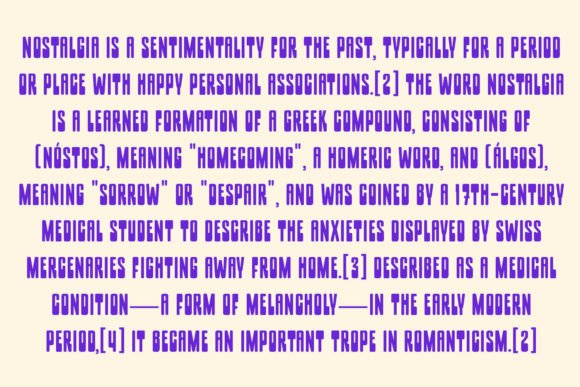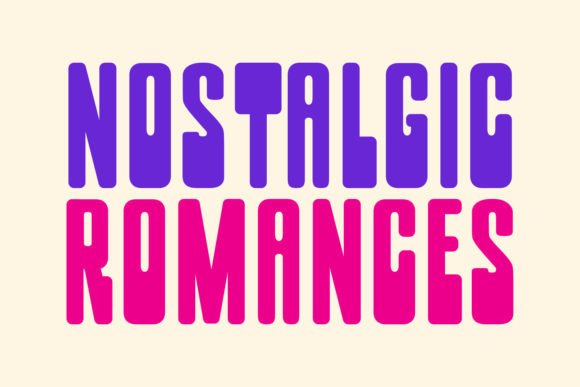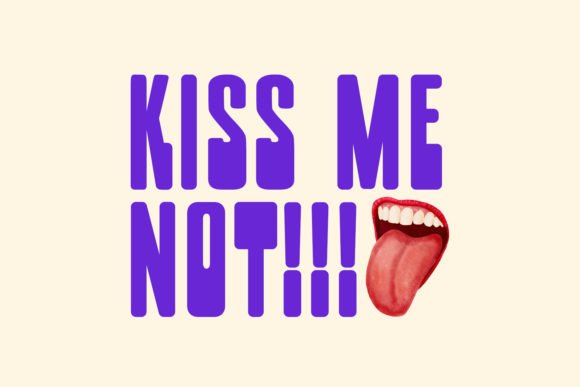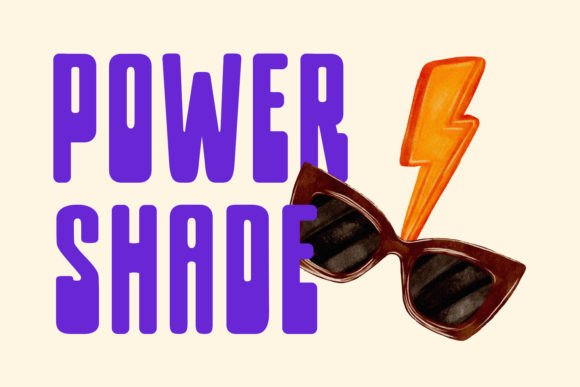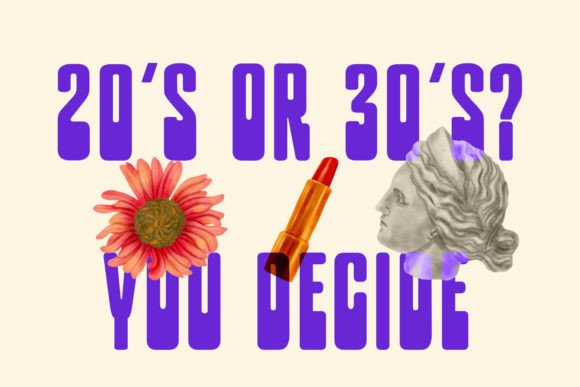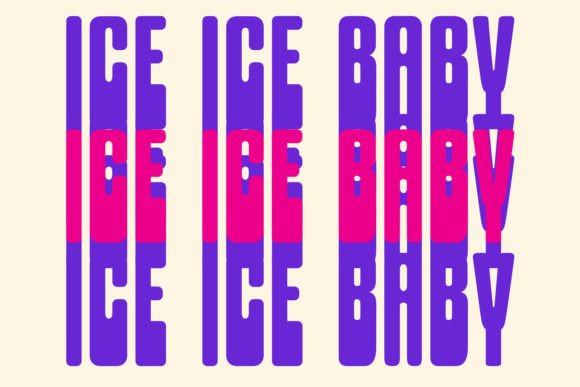
Introducing Bigly Font: The Ultimate Condensed Retro Sans Serif for Your Creative Projects
In the world of typography, fonts play a crucial role in conveying messages, evoking emotions, and setting the tone for creative projects. For designers, crafters, and DIY enthusiasts, finding the right font can be a daunting task. However, if you’re looking for a versatile and stylish font that can elevate your creations, look no further than Bigly Font. In this article, we’ll explore the features, benefits, and uses of Bigly Font, a condensed retro sans serif font that’s sure to become a valuable asset in your font library.
What is Bigly Font?
Bigly Font is a condensed retro sans serif font designed to add a touch of nostalgia and sophistication to your creative projects. Its unique blend of vintage charm and modern style makes it perfect for a wide range of applications, from branding and advertising to crafting and DIY projects. Whether you’re working on a logo, poster, or social media graphic, Bigly Font is sure to make a lasting impression.
Key Features of Bigly Font
So, what sets Bigly Font apart from other fonts? Here are some of its key features:
- Condensed design: Bigly Font is a condensed font, which means it’s perfect for creating visually appealing text that’s easy to read, even in small sizes.
- Retro sans serif style: The font’s retro sans serif style gives it a unique and recognizable look that’s reminiscent of vintage typography.
- Versatile: Bigly Font can be used for a wide range of creative projects, from digital designs to print materials.
- Easy to read: The font’s clean and simple design makes it easy to read, even for extended periods.
Benefits of Using Bigly Font
So, why should you choose Bigly Font for your creative projects? Here are some of the benefits of using this amazing font:
- Enhances creativity: Bigly Font’s unique style and versatility can help stimulate your creativity and inspire new ideas.
- Saves time: With Bigly Font, you can create professional-looking designs in no time, thanks to its easy-to-read and visually appealing design.
- Perfect for branding: The font’s retro style and condensed design make it perfect for creating memorable logos and brand identities.
- Great for crafters and DIY enthusiasts: Bigly Font is also perfect for crafters and DIY enthusiasts who want to add a personal touch to their projects.
How to Use Bigly Font in Your Creative Projects
Now that you know more about Bigly Font, let’s explore some ways to use it in your creative projects:
- Branding and logos: Use Bigly Font to create memorable logos and brand identities that stand out from the crowd.
- Posters and flyers: The font’s condensed design and retro style make it perfect for creating eye-catching posters and flyers.
- Social media graphics: Bigly Font is also great for creating social media graphics, such as Facebook posts, Instagram stories, and Twitter headers.
- Crafting and DIY projects: Use Bigly Font to add a personal touch to your crafting and DIY projects, such as handmade cards, gift tags, and scrapbooking.
In conclusion, Bigly Font is a versatile and stylish condensed retro sans serif font that’s perfect for a wide range of creative projects. Its unique blend of vintage charm and modern style makes it a valuable asset to any font library. Whether you’re a designer, crafter, or DIY enthusiast, Bigly Font is sure to enhance your creations and inspire new ideas. So why wait? Download Bigly Font today and take your creative projects to the next level!